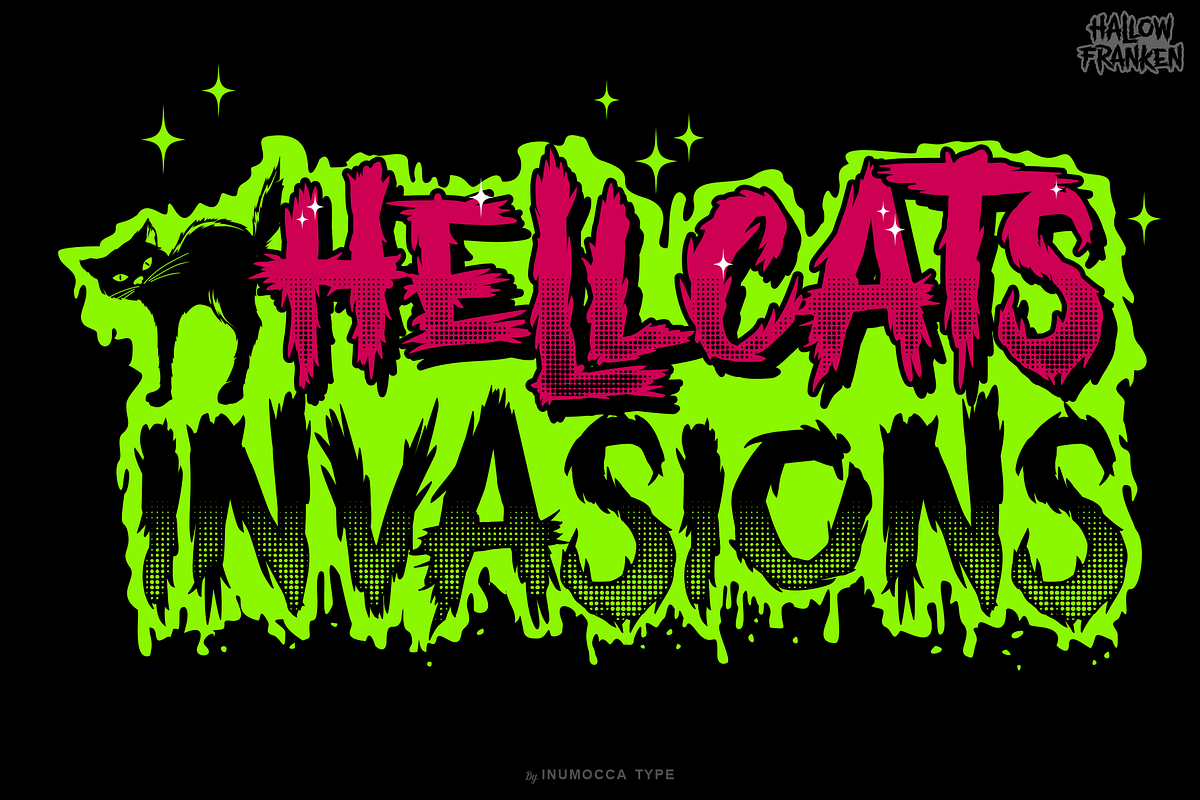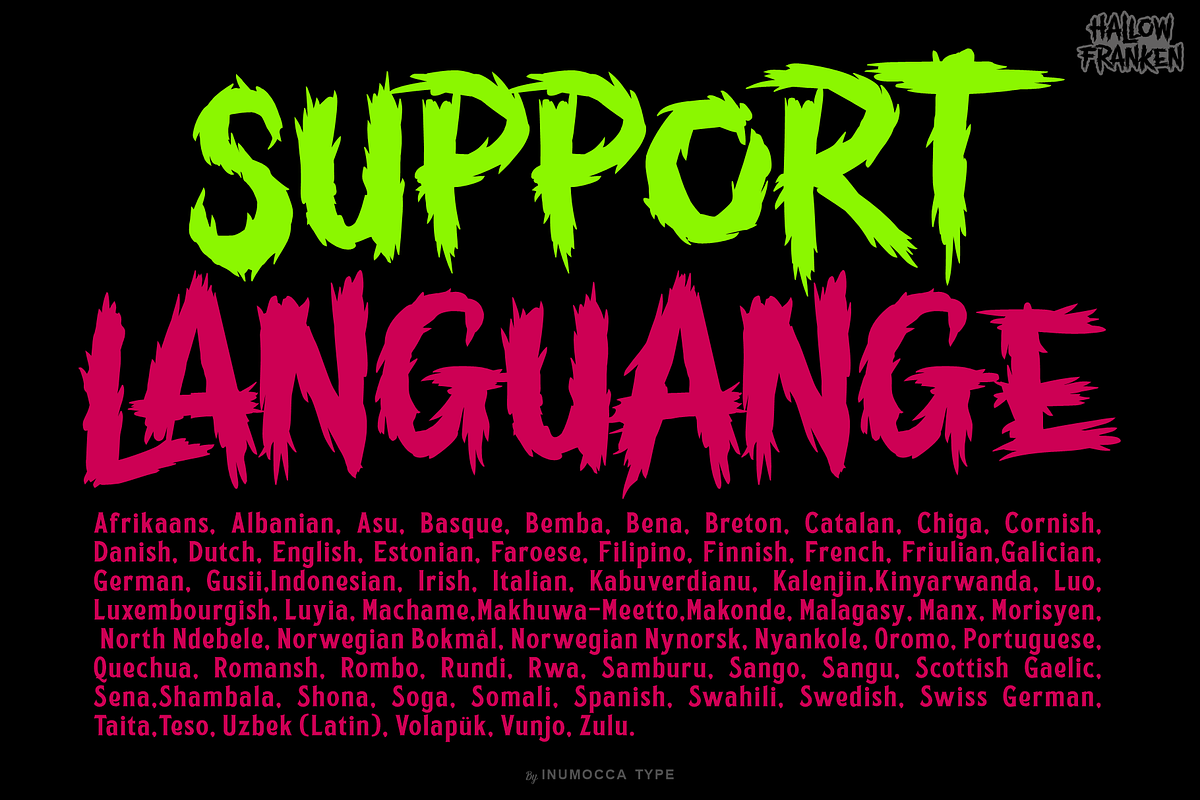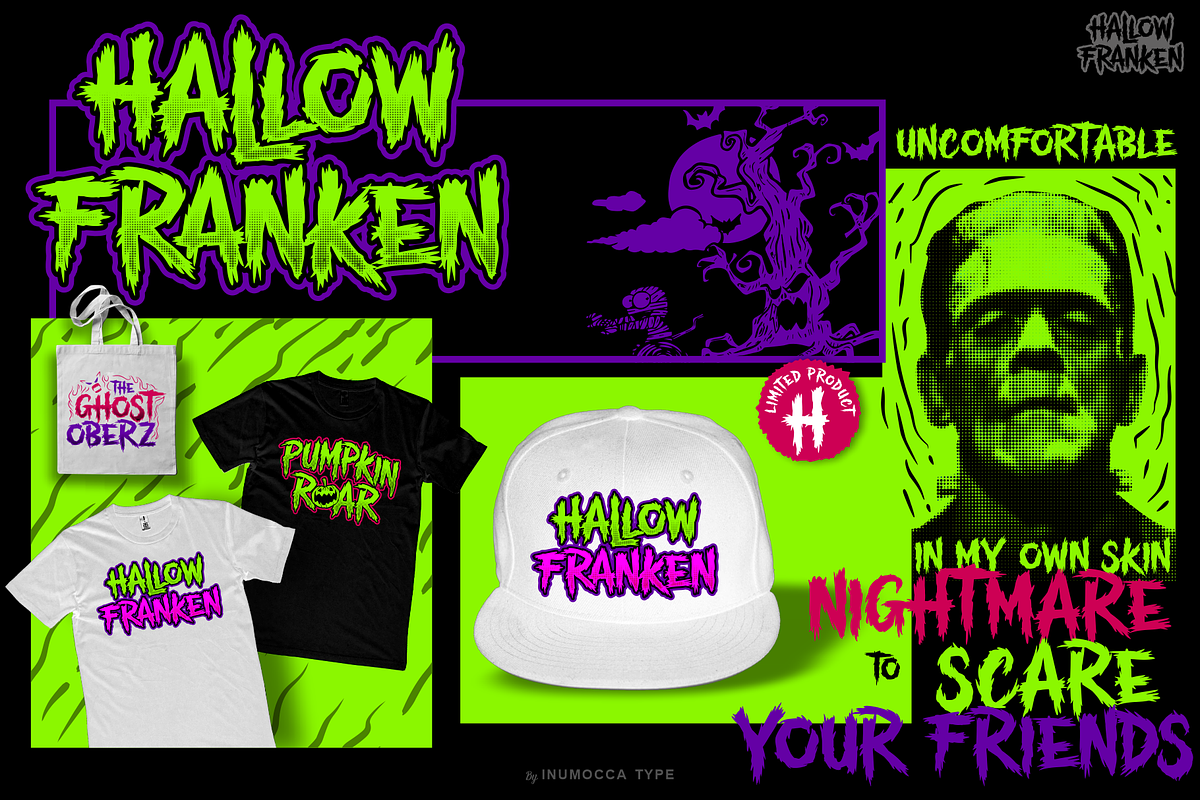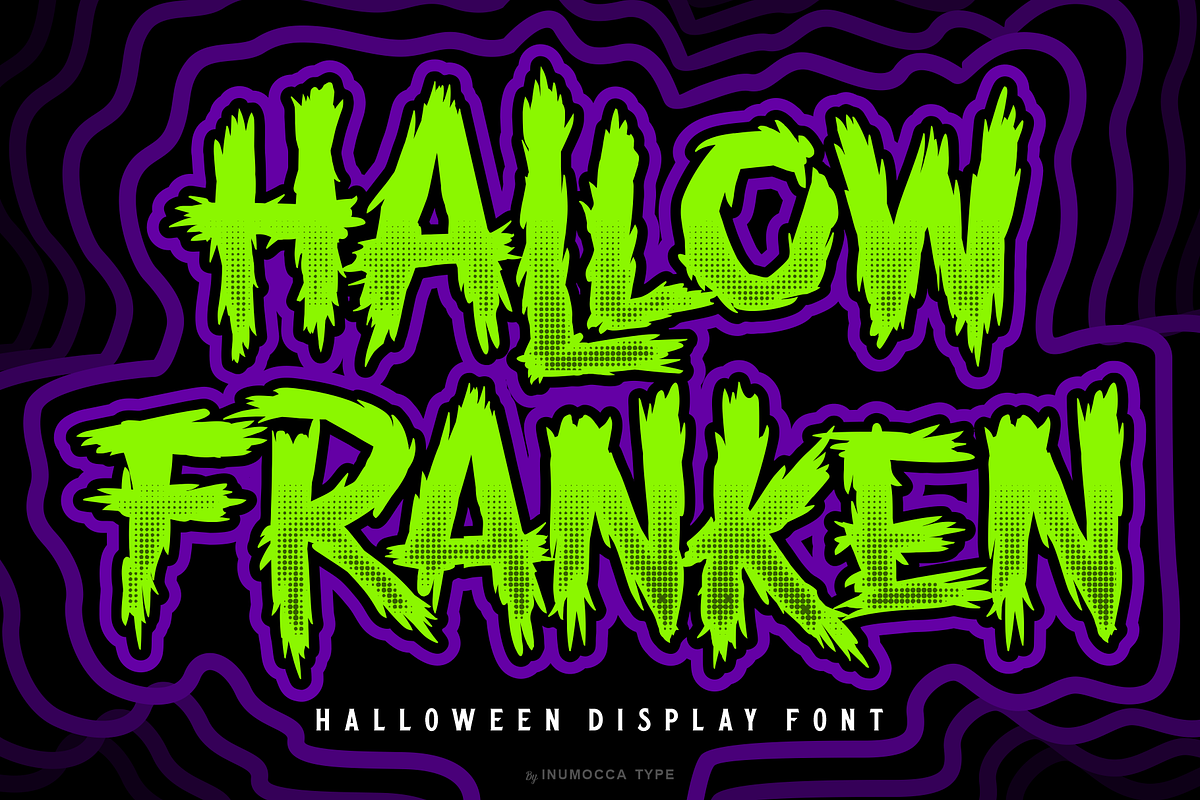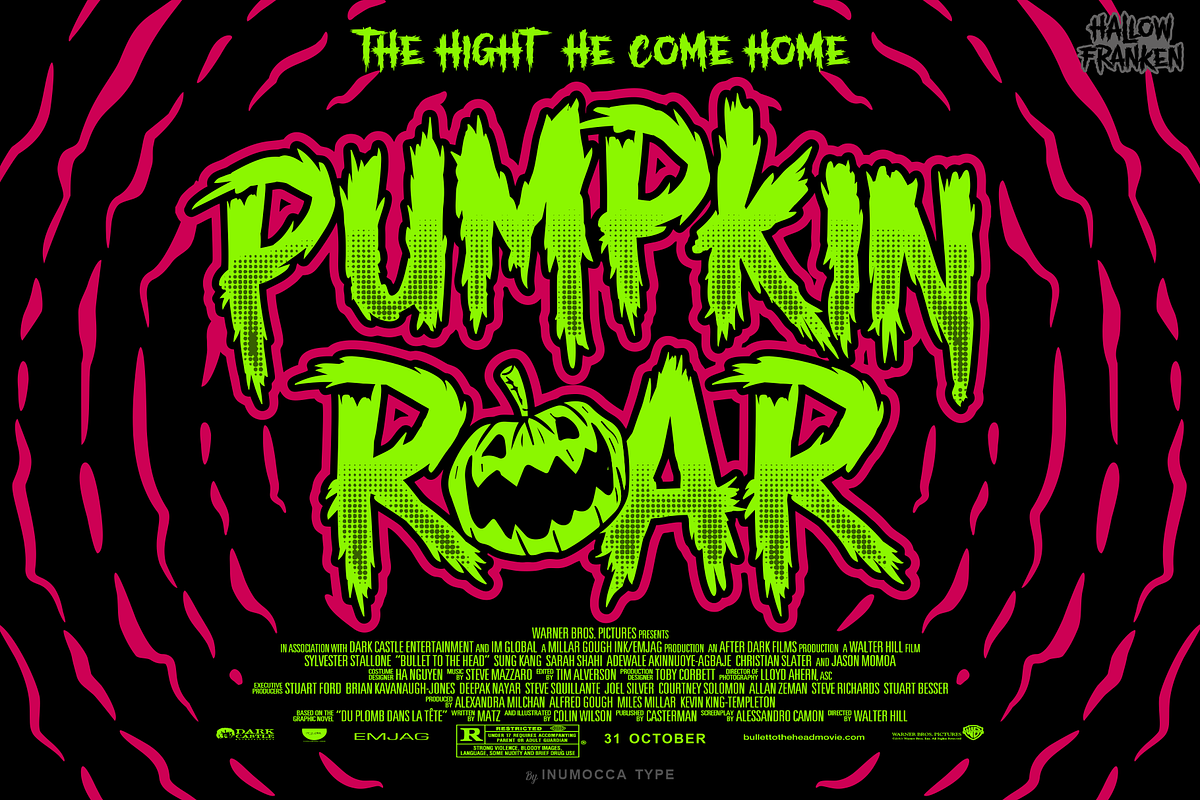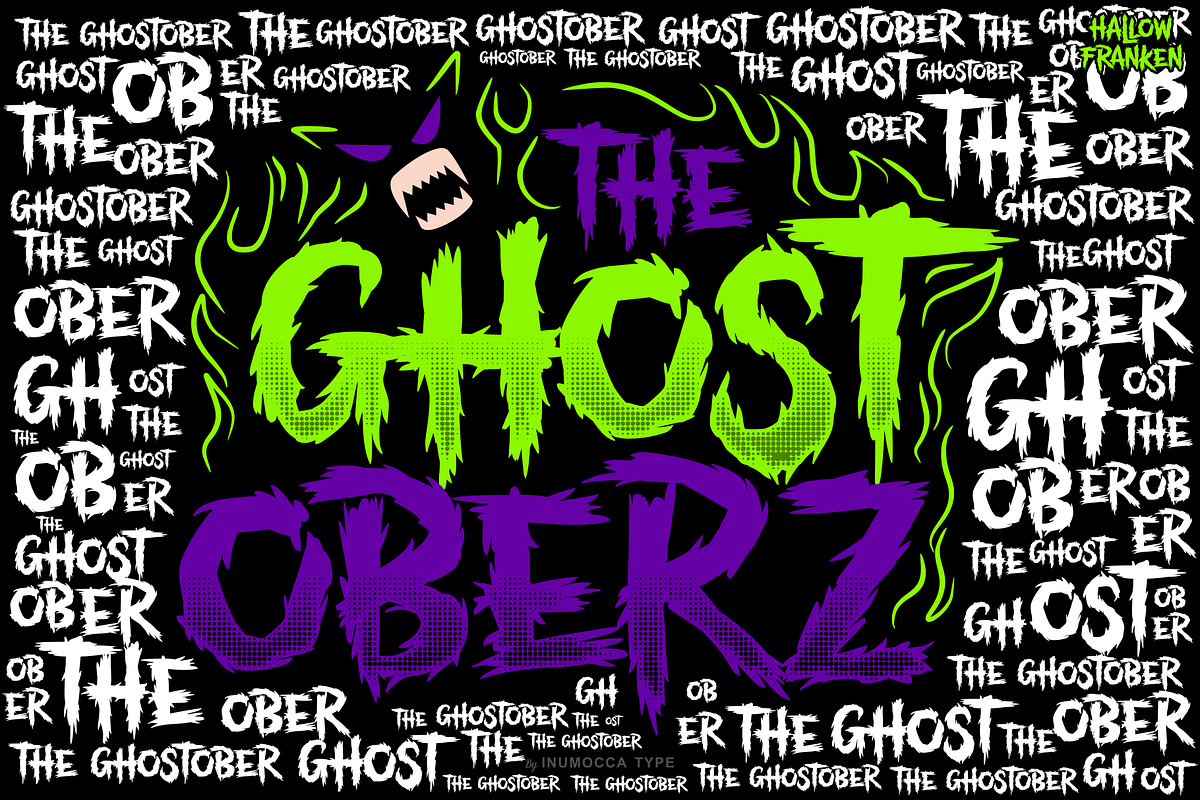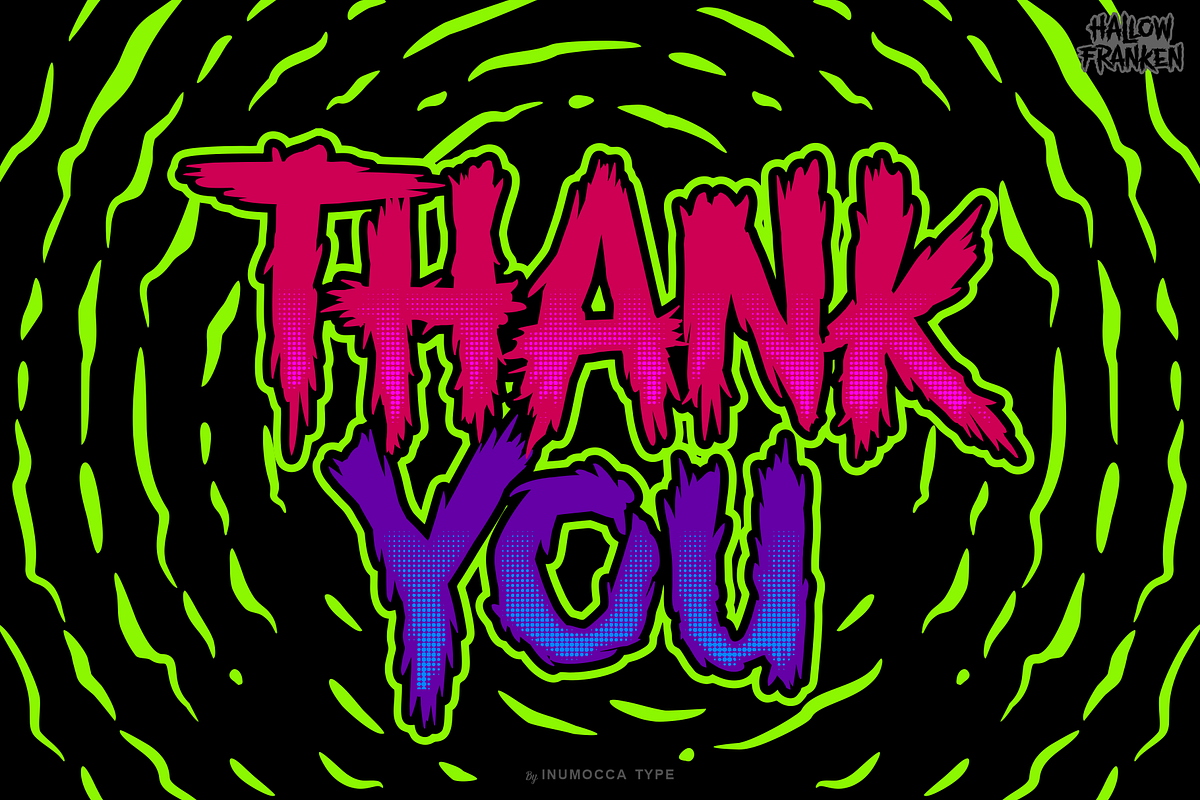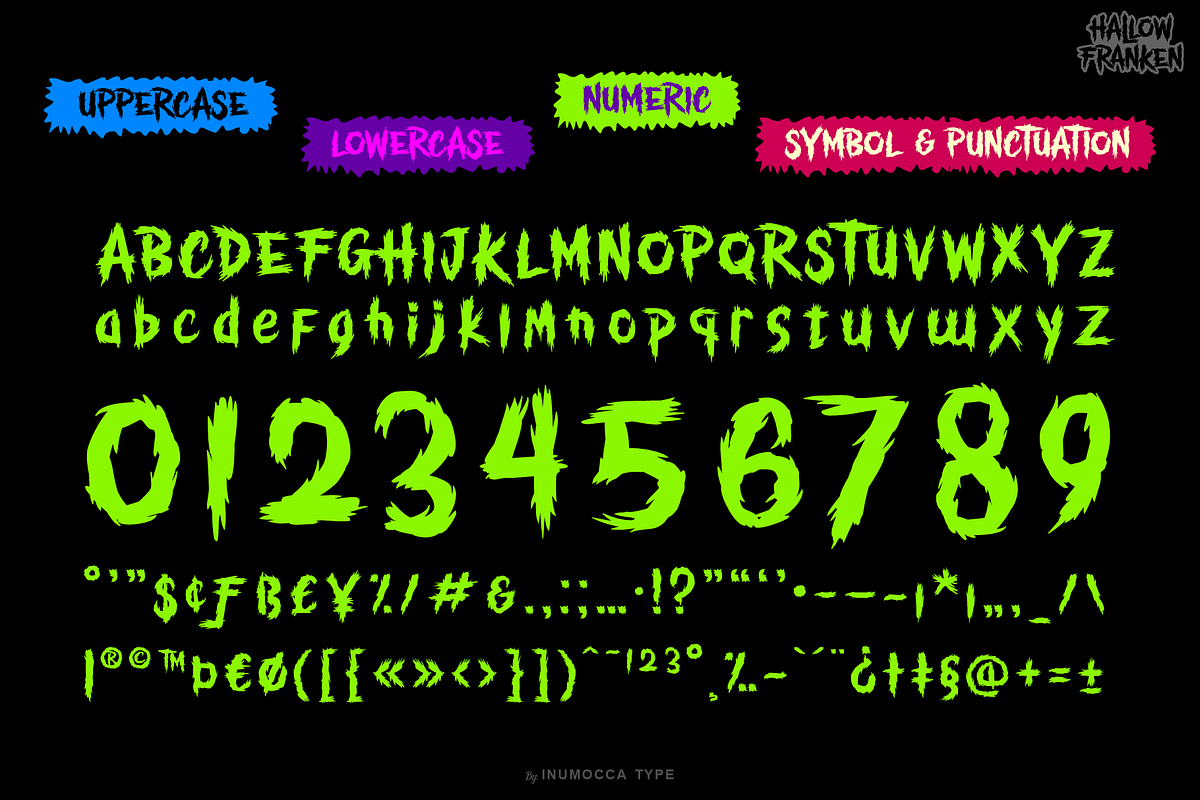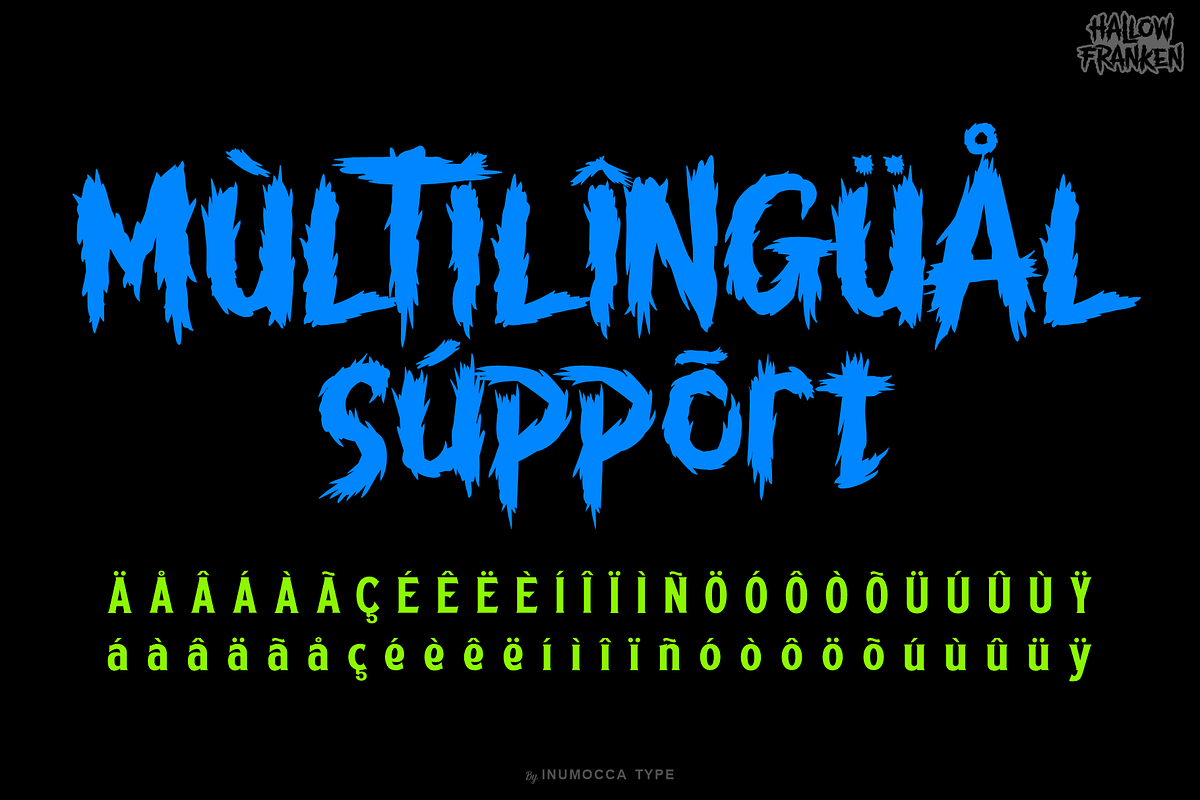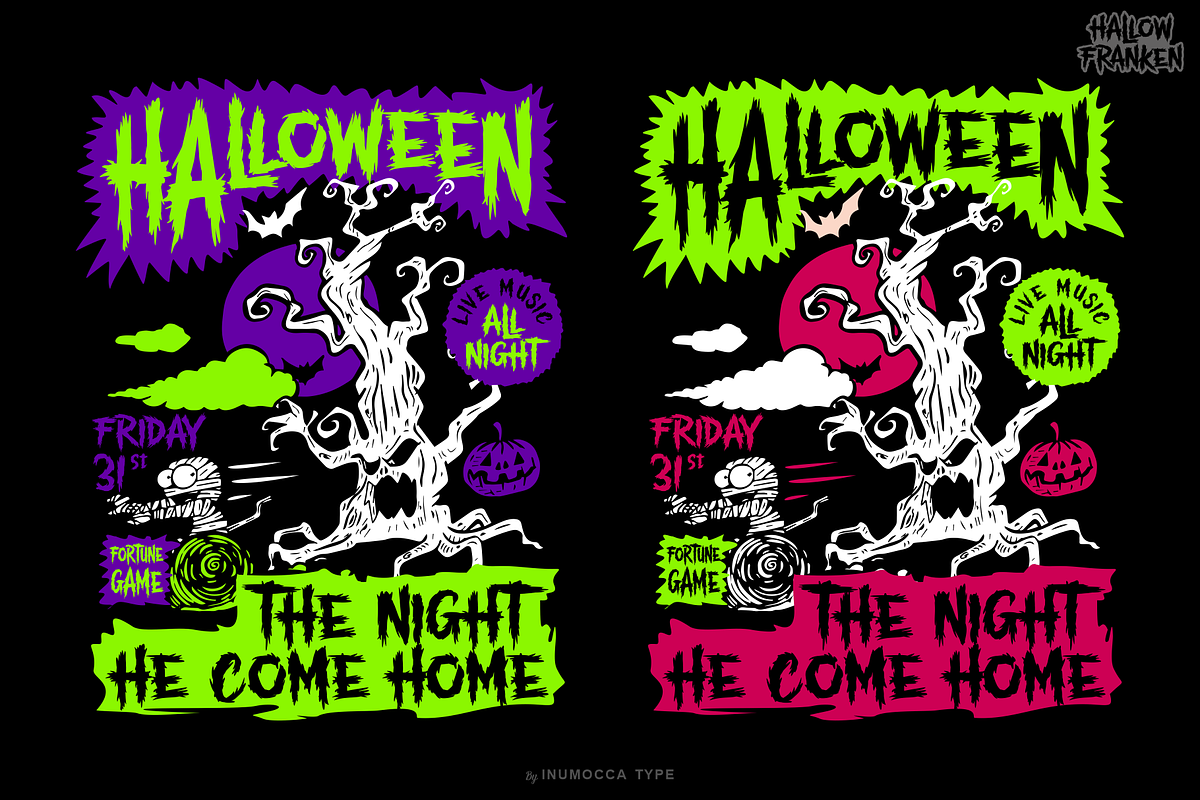
Hallow Franken
Hallow Franken Halloween Display Font, deep horror feel, scream, weat and raw. come with some simple Ligature for covering your Project, like Branding, Movie Title, Headline Letter, Bookcover or Book Content, Magazine cover, Poster, Quotes Lettering, Logos, and more your project design.
- Unique glyphs
- Multilingual Characters
- UPPERCASE
- Numeric
- Symbol
- Punctuation Character